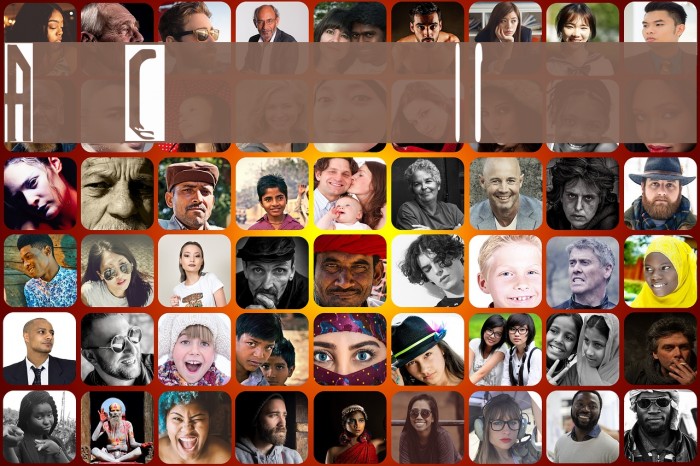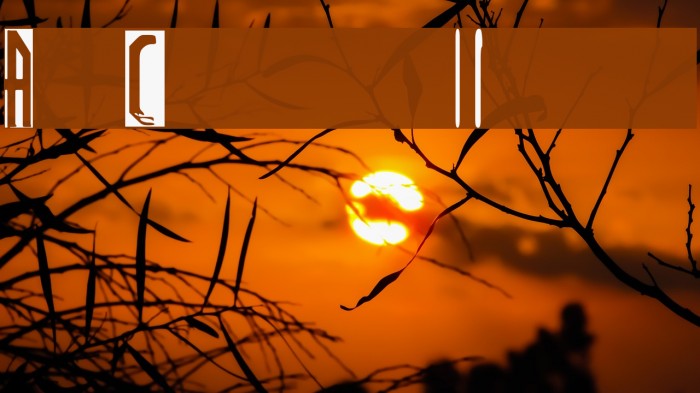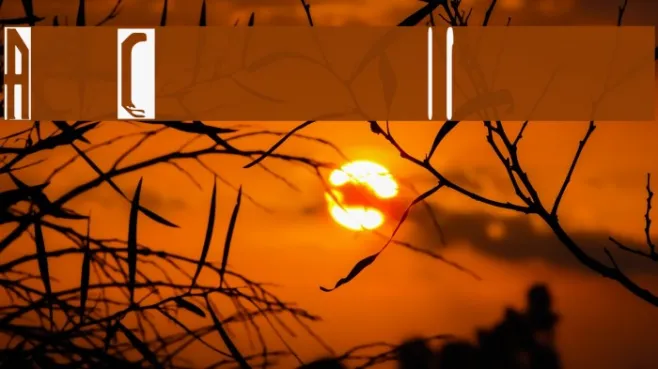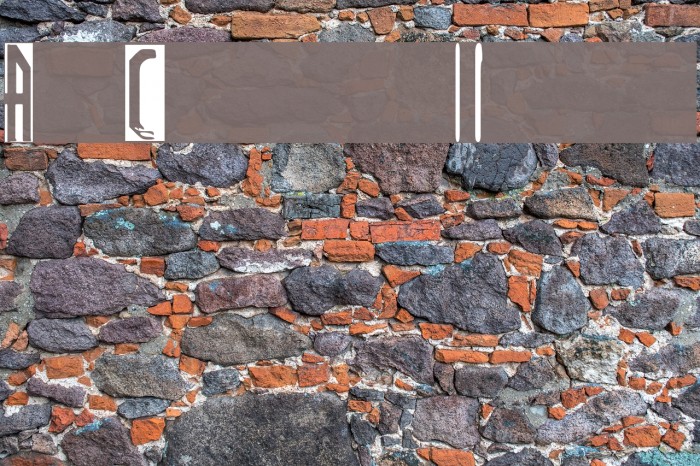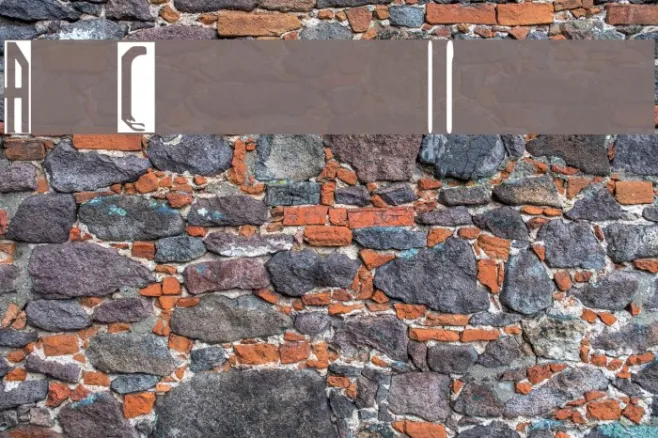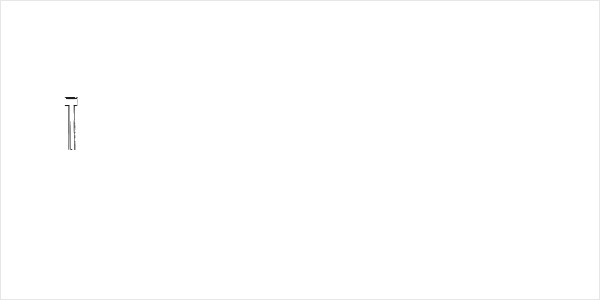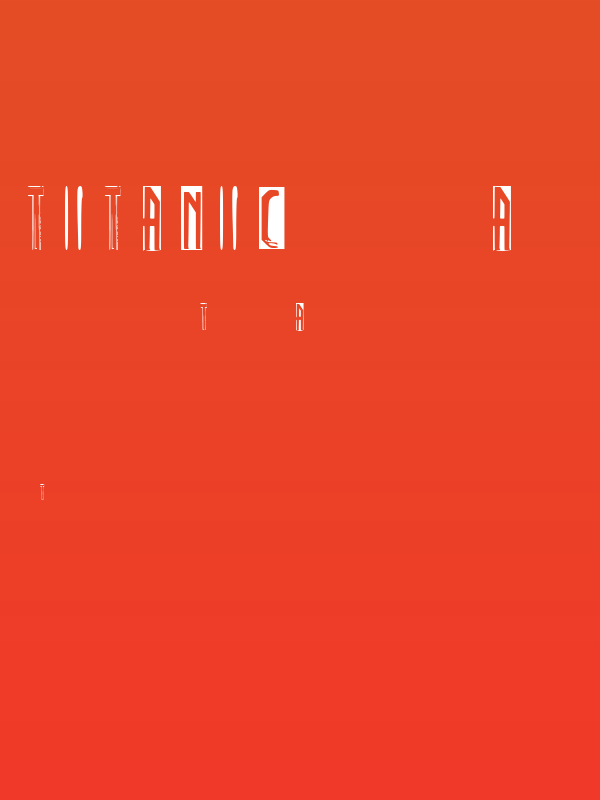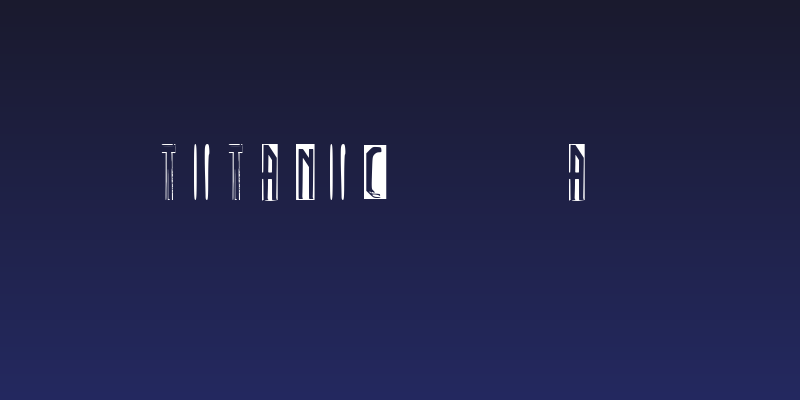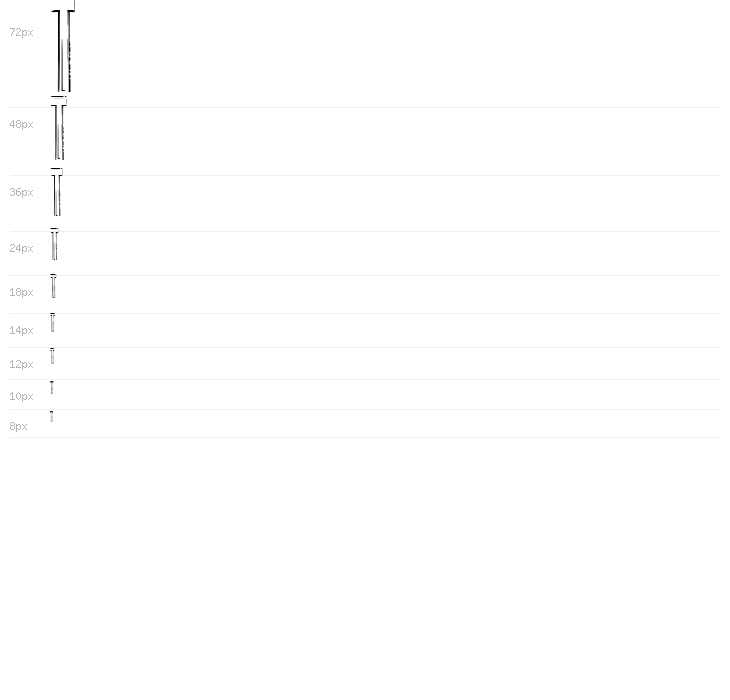
Titanic Regular Font
✎ Art Deco
Titanic Regular Description
This font features a bold and striking design with a strong emphasis on geometric shapes and clean lines. The characters are tall and narrow, creating a sense of elegance and sophistication. The uppercase letters have a distinct Art Deco influence, with sharp angles and a sense of symmetry. The overall appearance is modern yet timeless, making it suitable for a variety of design applications. The font's unique style is ideal for creating eye-catching headlines and titles, as well as for use in branding and logo design.